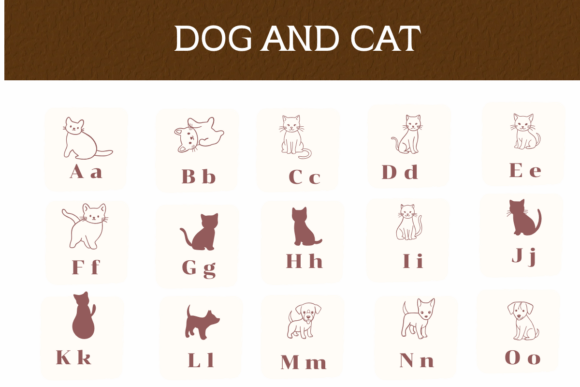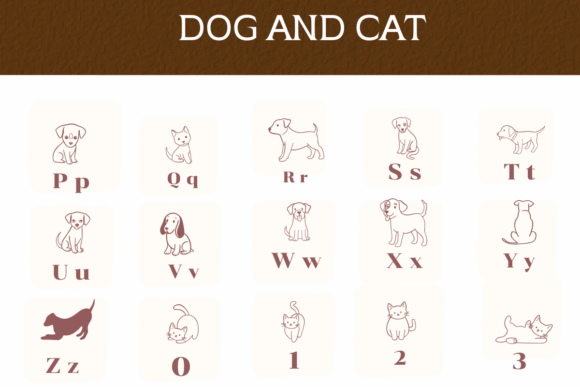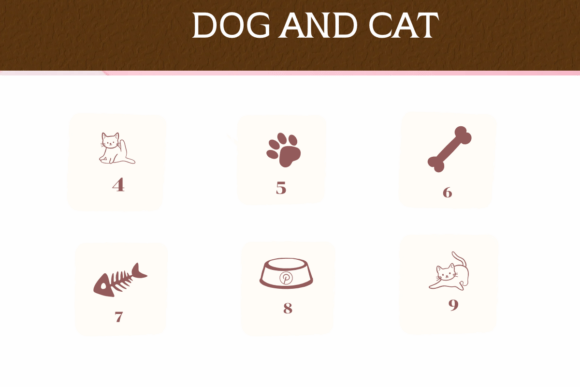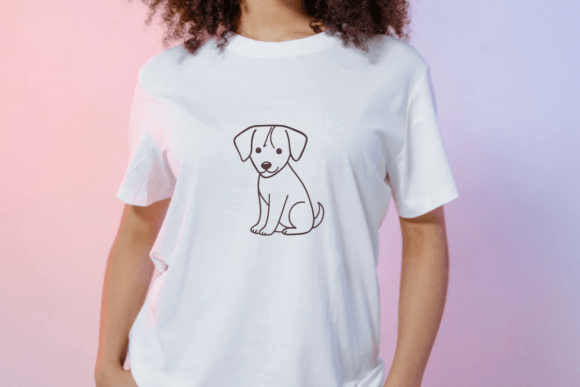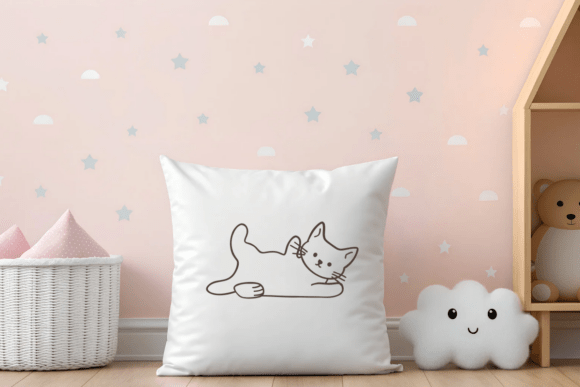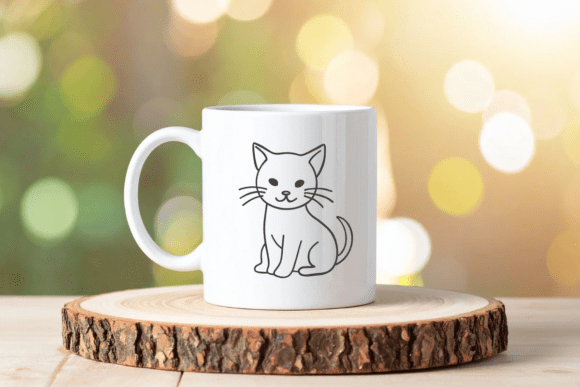
Celebrate Your Furry Friends with the Dog and Cat Font
Are you an animal lover looking for a fun and creative way to add personality to your designs? Look no further than the Dog and Cat font, a massive collection of adorable pet-themed dingbats that’s sure to delight. This typeface is a playground for pet enthusiasts, featuring dozens of hand-drawn icons that showcase playful pups, curious kittens, paw prints, and favorite treats like bones and fish.
The Perfect Shortcut for Pet-Centric Projects
The Dog and Cat typeface is the perfect shortcut for adding instant personality and “aww-factor” to any pet-centric project. Whether you’re designing for a veterinary clinic, pet boutique, or animal shelter, this font is a must-have. The charming icons can be used to create custom stickers, decorative borders, or engaging infographics about pet care. The possibilities are endless, and the Dog and Cat font is sure to bring a smile to the faces of pet owners and animal lovers alike.
Use in Personal Projects
The Dog and Cat font isn’t just limited to professional use – it’s also perfect for personal projects. Scrapbook your pet’s milestones with custom icons, or design custom apparel for dog and cat owners. The icons pair perfectly with rounded, friendly sans-serifs, helping you create a warm and welcoming brand identity that speaks directly to the hearts of pet parents.
Key Features of the Dog and Cat Font
- Massive collection of pet-themed dingbats: With dozens of hand-drawn icons, you’ll have plenty of options to choose from.
- Adorable illustrations: Playful pups, curious kittens, paw prints, and favorite treats like bones and fish.
- Instant personality and “aww-factor”: Add a touch of warmth and personality to any pet-centric project.
- Perfect for veterinary clinics, pet boutiques, and animal shelters: Create custom stickers, decorative borders, or engaging infographics about pet care.
- Works beautifully for personal projects: Scrapbooking, custom apparel, and more.
Design Tips and Inspiration
When using the Dog and Cat font, don’t be afraid to get creative. Here are a few design tips to get you started:
- Mix and match icons: Combine different icons to create a unique and playful design.
- Pair with complementary fonts: Rounded, friendly sans-serifs work perfectly with the Dog and Cat font.
- Use in combination with images: Add an extra layer of personality to your designs with custom illustrations or photographs.
Who Can Benefit from the Dog and Cat Font?
The Dog and Cat font is perfect for:
- Veterinary clinics: Create custom stickers, brochures, or website graphics that showcase your love for animals.
- Pet boutiques: Add a touch of personality to your branding, packaging, or in-store displays.
- Animal shelters: Create engaging infographics, social media graphics, or fundraising materials.
- Pet owners and animal lovers: Use the Dog and Cat font to create custom scrapbook pages, decorations, or gifts.
The Dog and Cat font is a must-have for anyone who loves animals. With its massive collection of adorable pet-themed dingbats, this typeface is the perfect shortcut for adding instant personality and “aww-factor” to any pet-centric project. Whether you’re a designer, crafter, or simply an animal lover, the Dog and Cat font is sure to inspire creativity and bring a smile to your face.